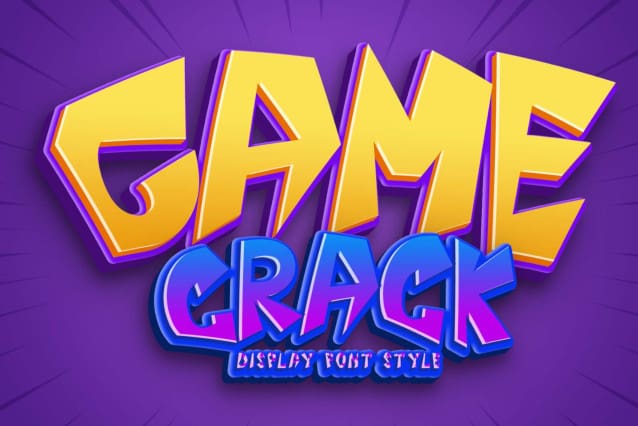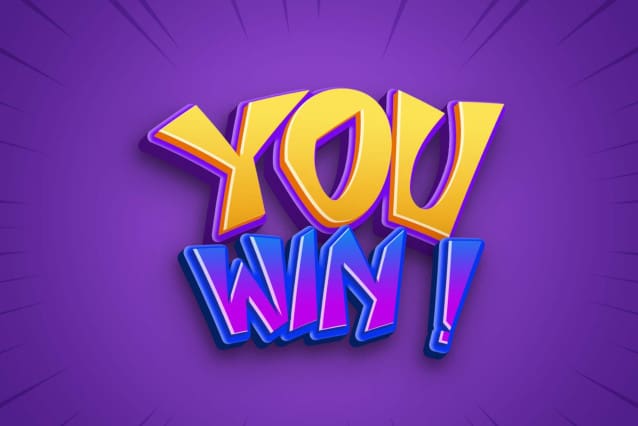
Game Crack Font
Game Crack Font is an elegant and professional display font. This font is carefully crafted and equipped with uppercase, lowercase, numerals, punctuations and multilingual support. It is very suitable for posters, games, banners, branding, applications, social media, back to school, halloween, christmas and others.